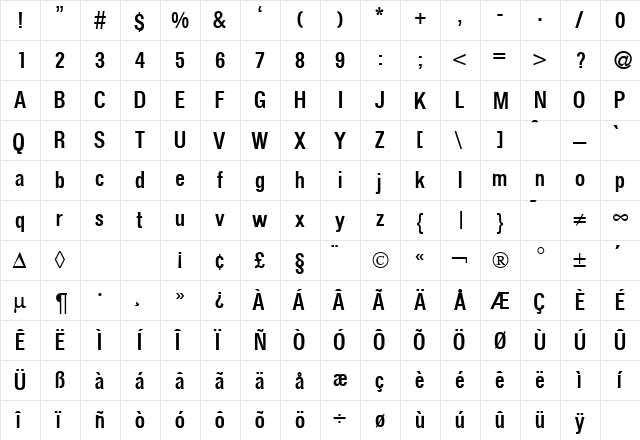
FocusCondMedium DB Regular
Design Context for FocusCondMedium DB Typeface
FocusCondMedium DB is a composed and adaptable typeface that performs quietly and consistently across a wide range of design contexts. The condensed width makes it efficient for tight spaces without sacrificing legibility.